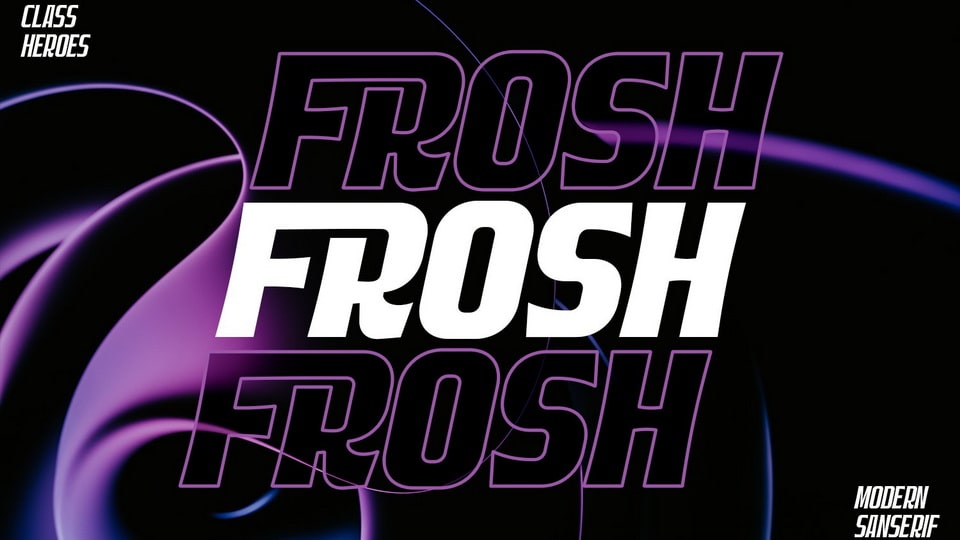
Download Frosh font, a modern sporty sans serif typeface. Use Frosh font for any branding, product packaging, invitation, quotes, t-shirt, label, poster, logo etc.
Designer: TypeClassHeroes